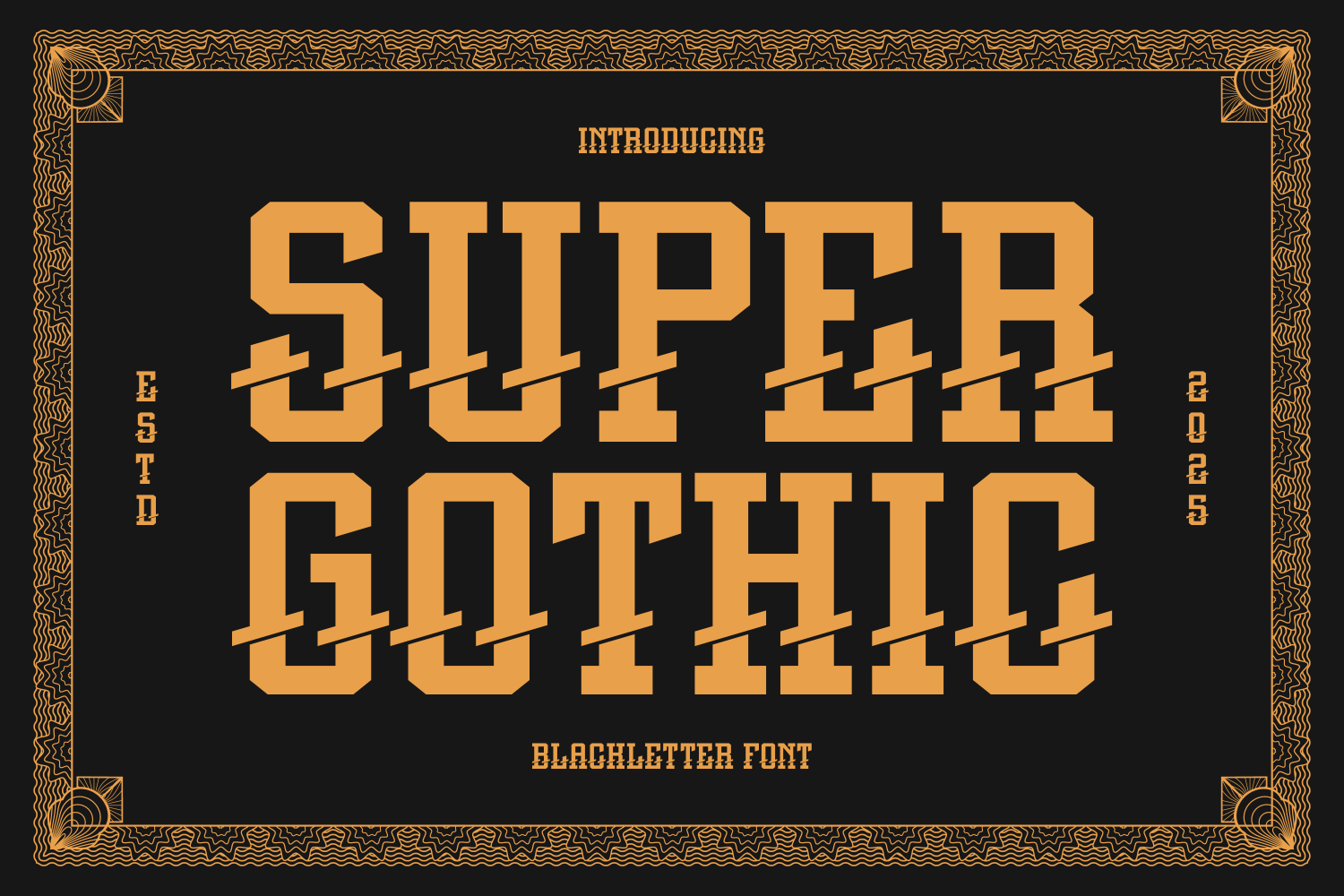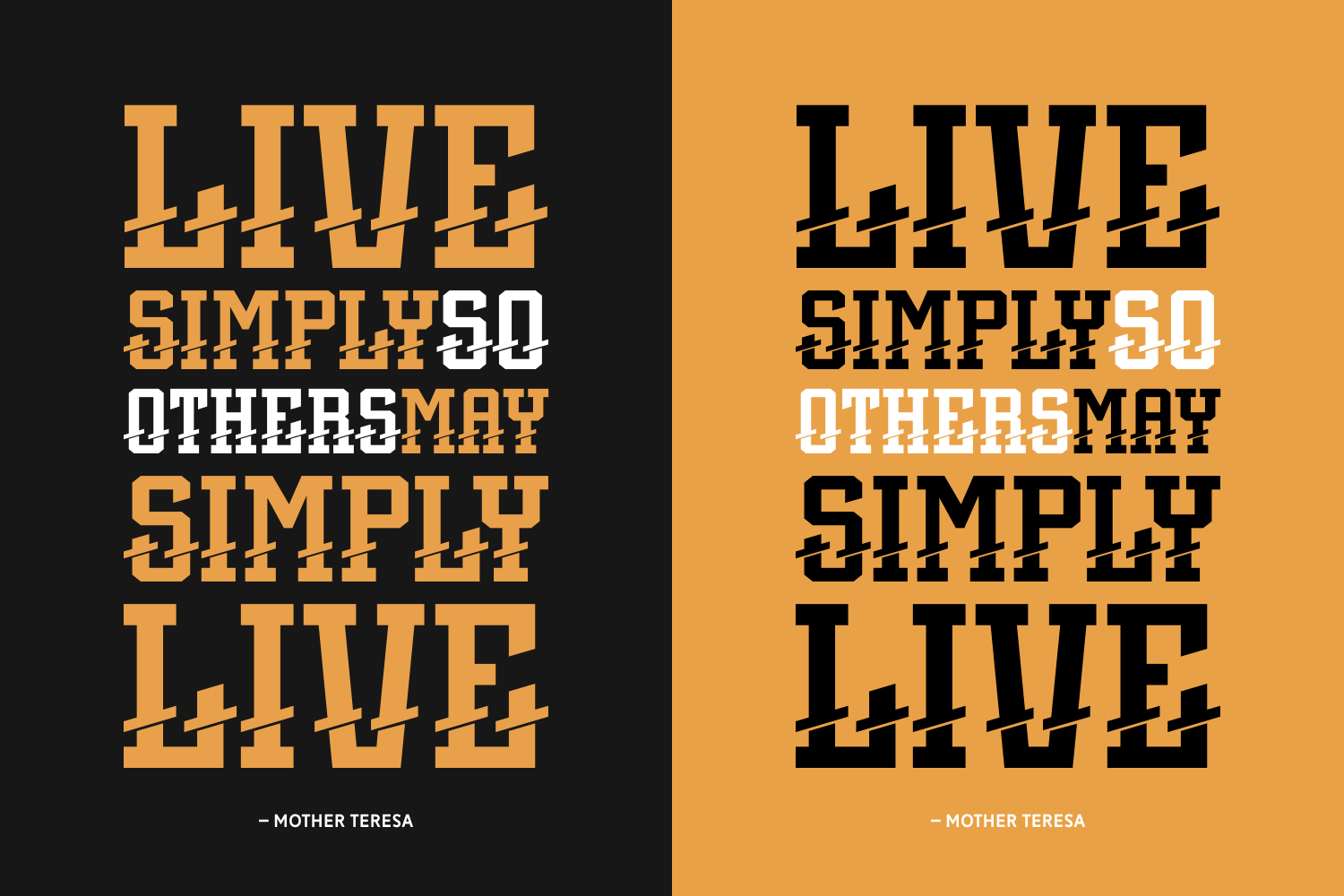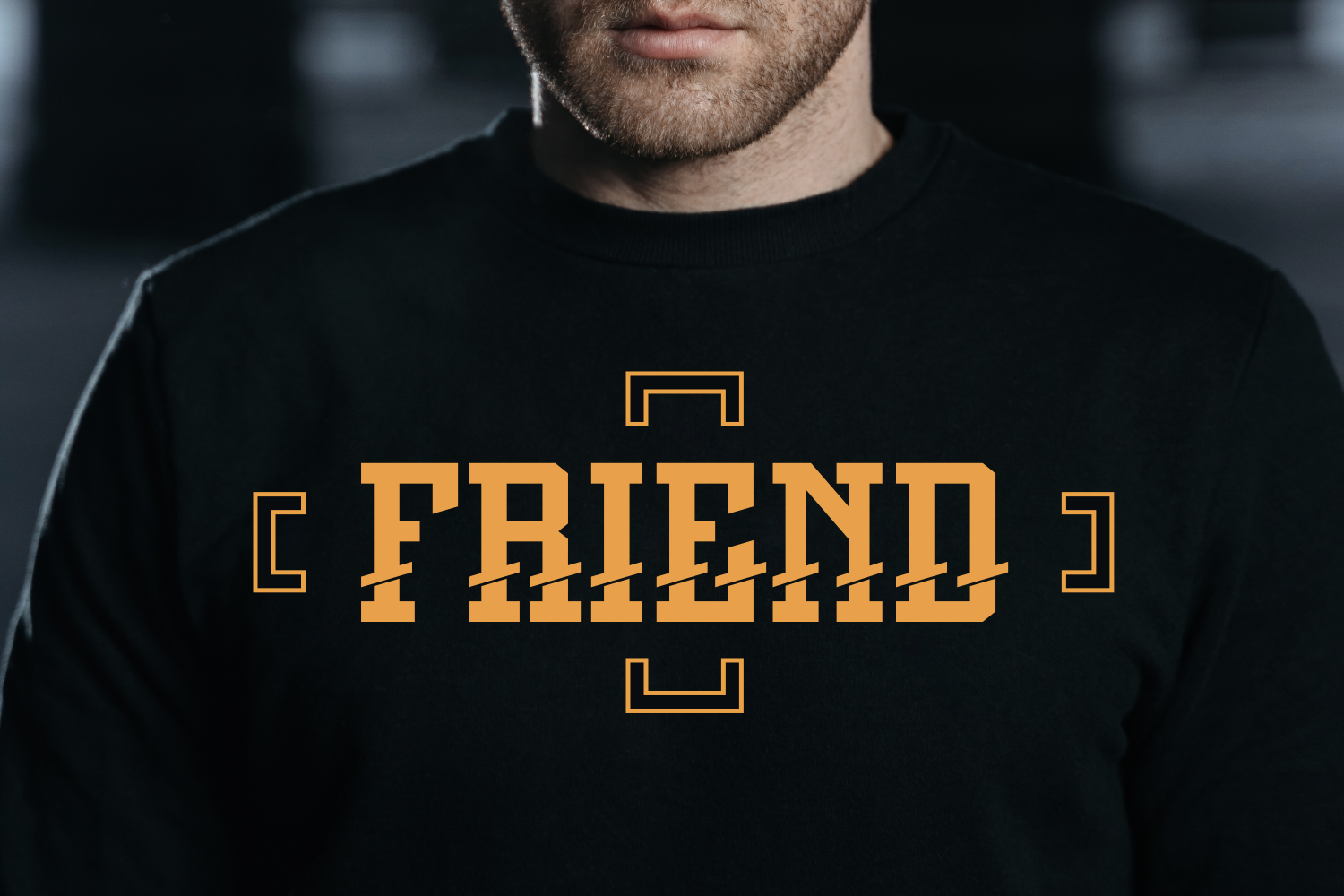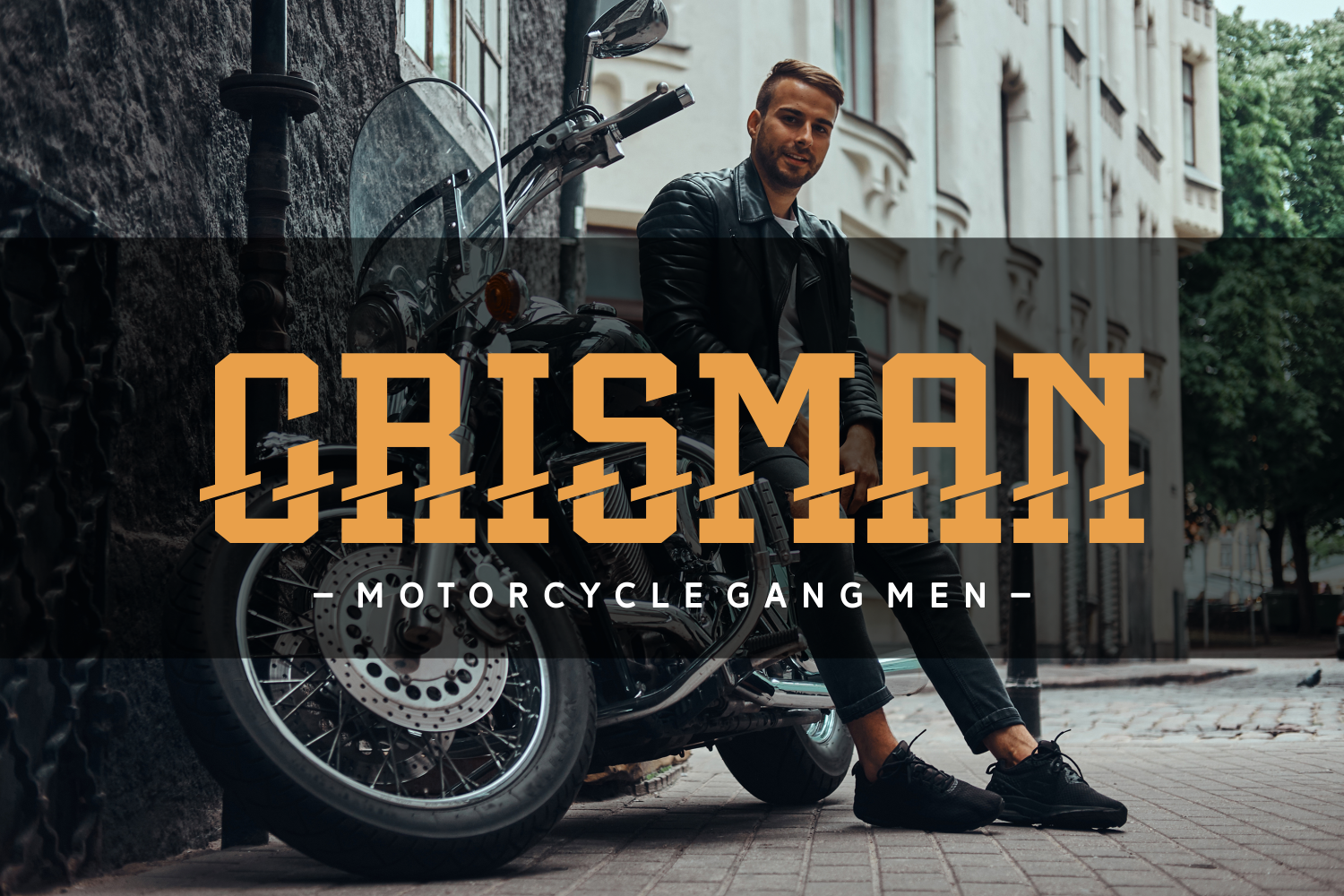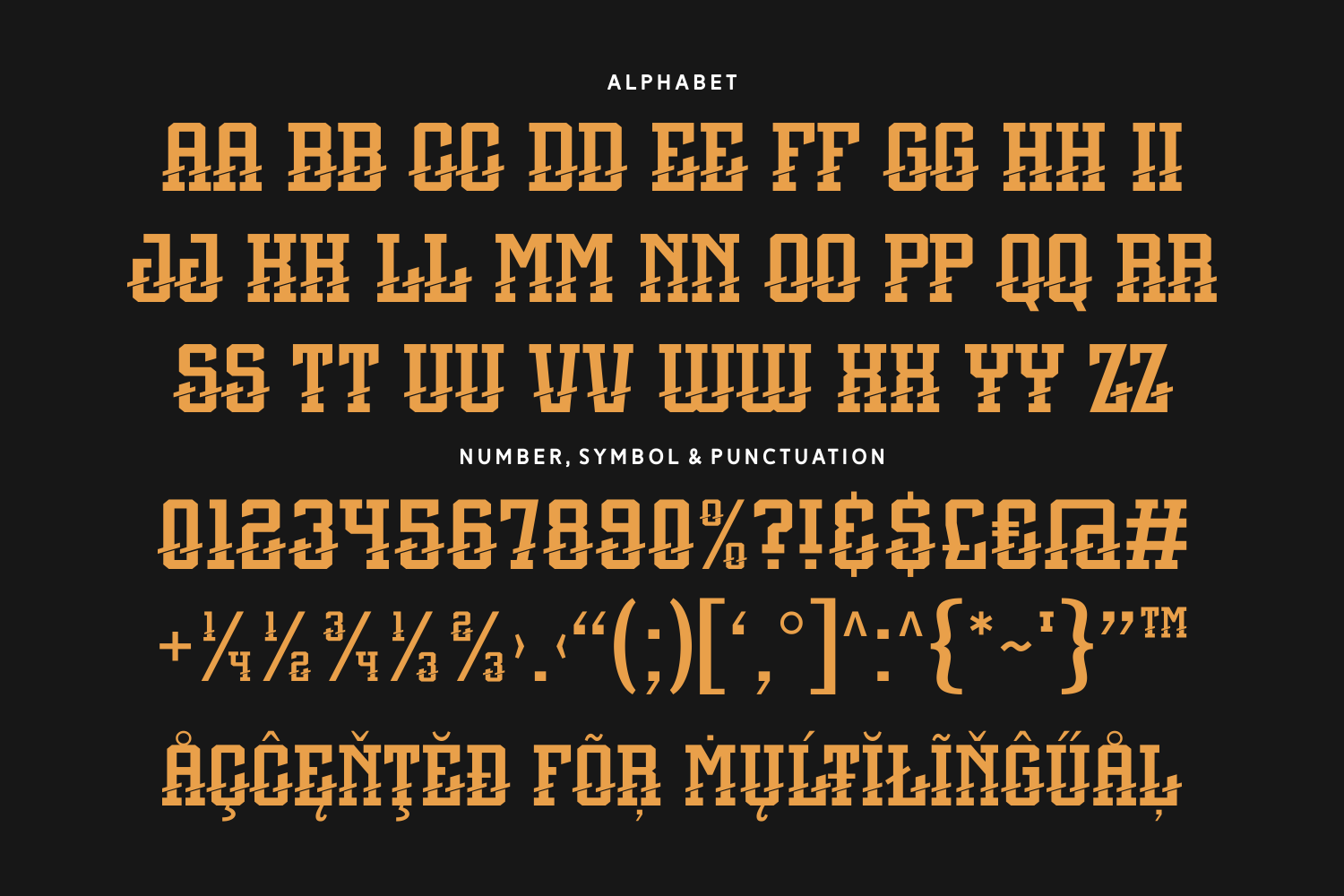
Super Gothic is a bold and geometric blackletter display font with a high-impact visual punch. Its thick block structure and diagonal slash details bring a dynamic, sporty edge that works perfectly for posters, headlines, team branding, and action-themed visuals.
This font commands attention and creates instant energy on the page. Built for speed, style, and bold statements.